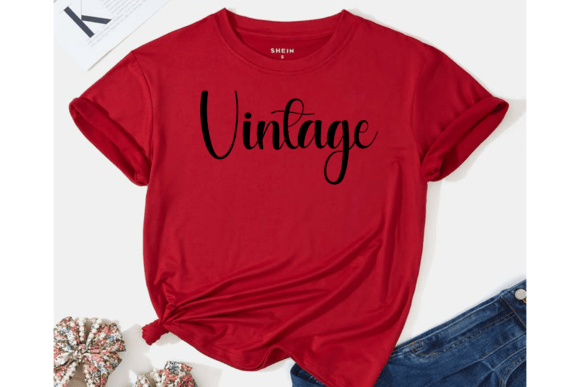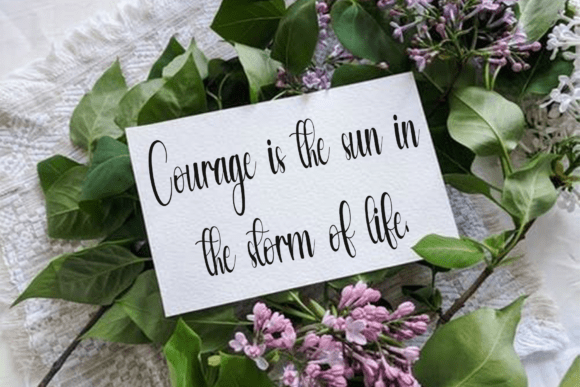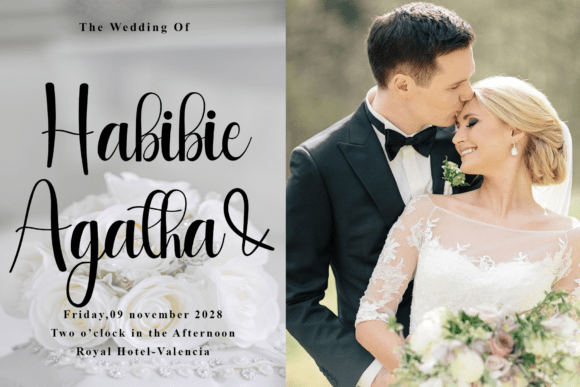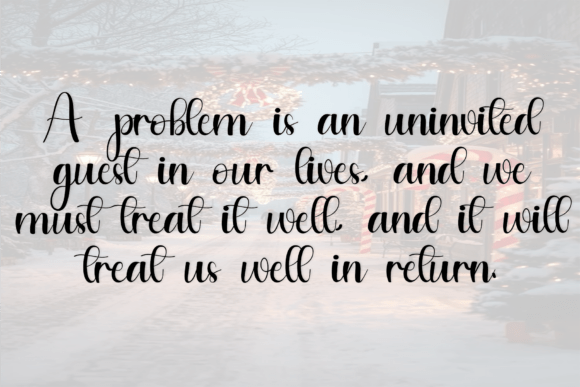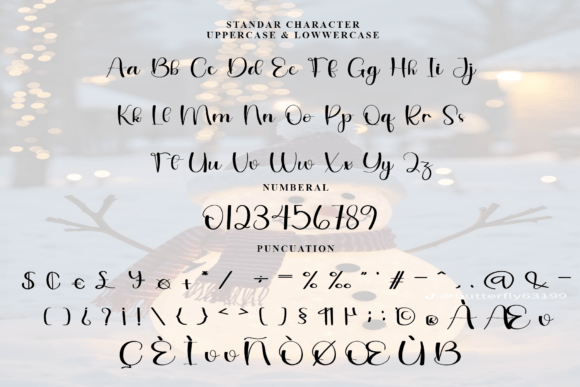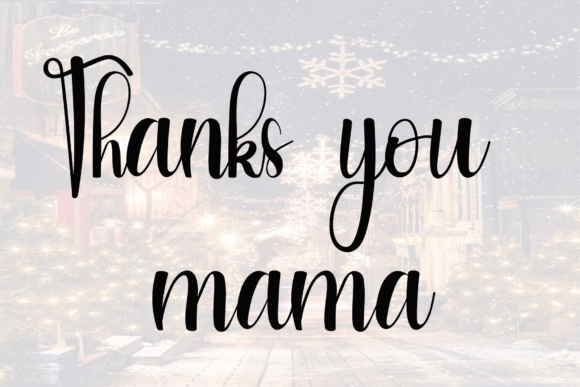
Unwrapping the Magic of Christmas Bright Font
There’s something special about the first moment you see a beautifully designed holiday card or a stunning wedding invitation – the way the words flow, the curves of the letters, and the overall feeling of luxury that it evokes. It’s a moment that makes you stop and appreciate the art of design, and the perfect tool to achieve that look is the Christmas Bright Font.
This elegant handwritten script font is designed to add a touch of sophistication to any project, from personal branding to editorial design. With its smooth, generous curves and elongated strokes, the Christmas Bright Font is perfect for creating a unique and authentic look that’s sure to leave a lasting impression. Whether you’re a seasoned designer or just starting out, this versatile font is a valuable addition to your toolkit, and a must-have for anyone looking to add a little extra magic to their designs.
Key Features of Christmas Bright Font
- Font Family: Christmas Bright, a unique and festive font designed specifically for the holiday season.
- Unique Characteristics: Features a bright, colorful, and playful design, with intricate details and ornaments, perfect for creating festive and joyful designs.
- Font Weight: Available in Regular, Bold, and Italic weights, providing options for varying levels of emphasis and style.
Designer Review: Christmas Bright Font
First off, let’s talk about what works well with this font. ✨ The festive vibe is on point, making it perfect for holiday-themed designs, cards, and social media graphics. The font’s bold lines and rounded edges give it a playful, cheerful feel that’s sure to put people in the mood for Christmas.
- ✨ Customizable color palette to match your brand or design aesthetic
- ✨ Great for creating eye-catching social media graphics and holiday cards
- ✨ Unique, bold design that stands out from more traditional fonts
However, there are some limitations to consider. ⚠️ The font may not be suitable for long blocks of text, as the bold lines can make it difficult to read. Additionally, the font’s design may not be versatile enough for use in non-holiday contexts, which could limit its overall appeal.
Overall, I’d say Christmas Bright Font is a great choice for designers looking to add a festive touch to their holiday projects. While it may not be the most versatile font, it’s sure to get the job done and leave a lasting impression on your audience.
The Christmas Bright Font is perfect for:
- Christmas and holiday-themed designs.
- Winter and seasonal marketing materials.
- Invitations and party decorations.
Remember to experiment with different font sizes, colors, and styles to get the most out of the Christmas Bright Font.
Alternative Christmas Fonts for Designers
Great Vibes is a beautiful, cursive font perfect for adding a touch of elegance to your designs. It’s ideal for creating invitations, wedding stationery, or any other project that requires a sophisticated look.
Compared to Christmas Bright Font, Great Vibes is more elegant and less playful, making it suitable for a wider range of designs.
Carolyna Pro is a modern, script font that works well for creating a festive atmosphere. It’s perfect for designing Christmas cards, gift tags, or any other project that requires a stylish and contemporary look.
Compared to Christmas Bright Font, Carolyna Pro is more versatile and can be used for a variety of designs, from casual to formal.